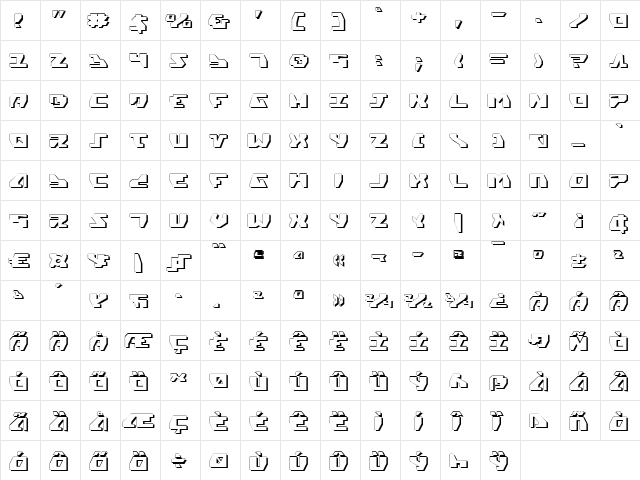
Gyrfalcon 3D 3D
| Style | 3D |
Design Context for Gyrfalcon 3D Typeface
Gyrfalcon 3D is a composed and adaptable typeface that performs quietly and consistently across a wide range of design contexts.
Pro Tip: Use Gyrfalcon 3D in both headline and body roles to test its range before committing to a single application.